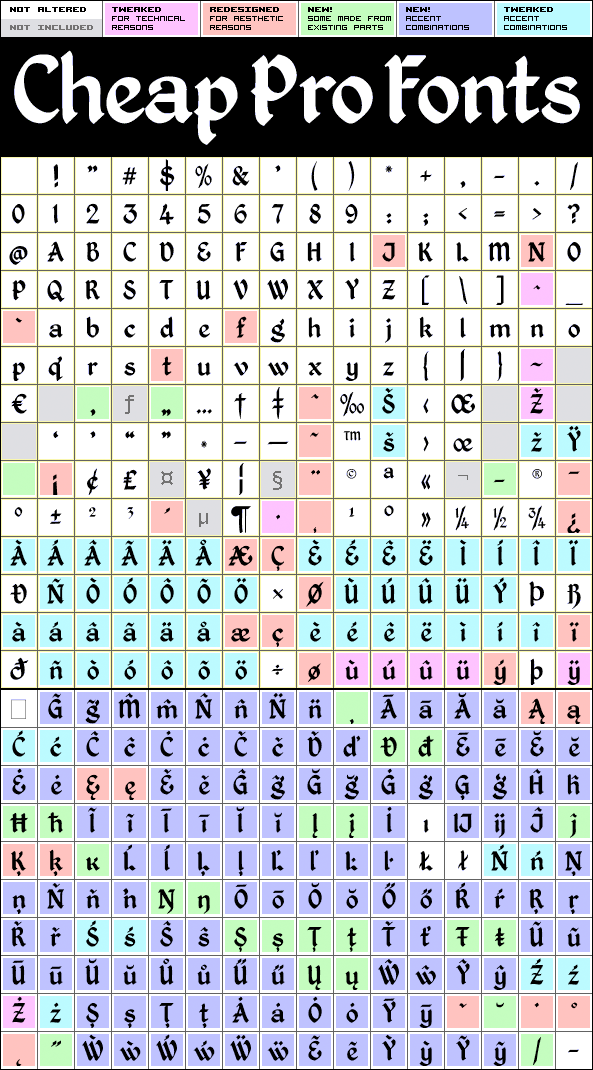
Kingthings Petrock Pro
Kingthings Petrock Pro by Kevin King
Kevin King
I have reworked the spacing a bit, and completely redesigned the "N" as it was calligraphically very wrong ;)
Keving King says: «Petrock is based on letterforms found in a small city Church in Exeter - from a display case about bell ringing. A lovely simple labelling hand, I think I've done it justice...»
Kingthings Petrock Pro is a professionally reworked font that contains an extended character set for setting text in 65 languages requiring more than the basic A-Z!
Kingthings Petrock Light Pro
Kingthings Petrock Light Pro by Kevin King